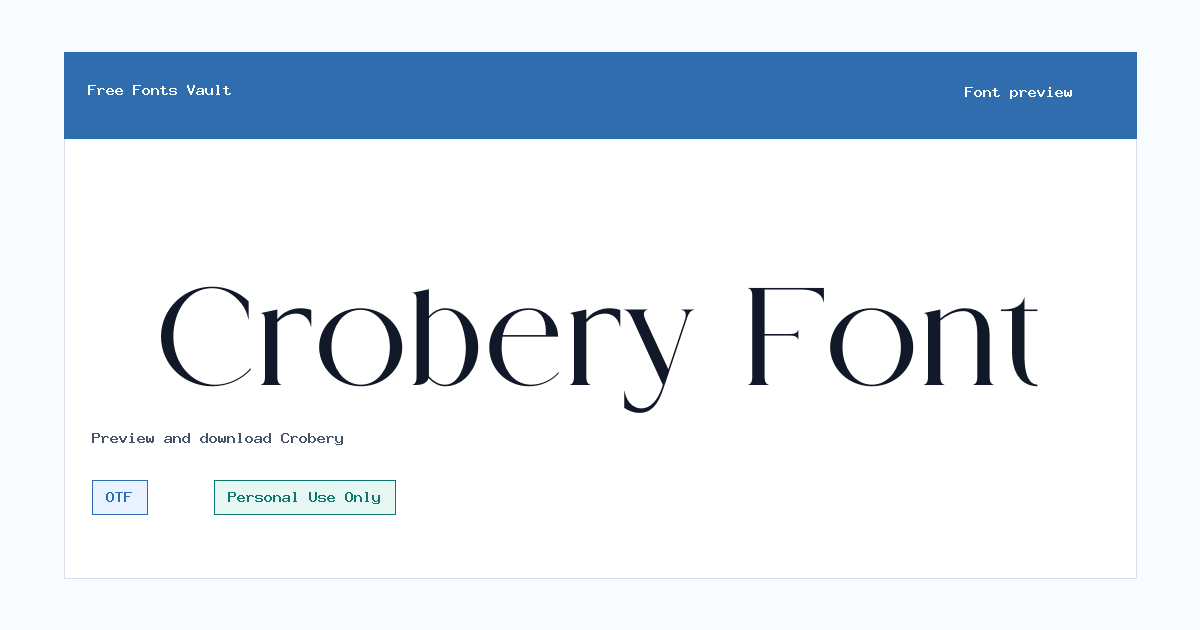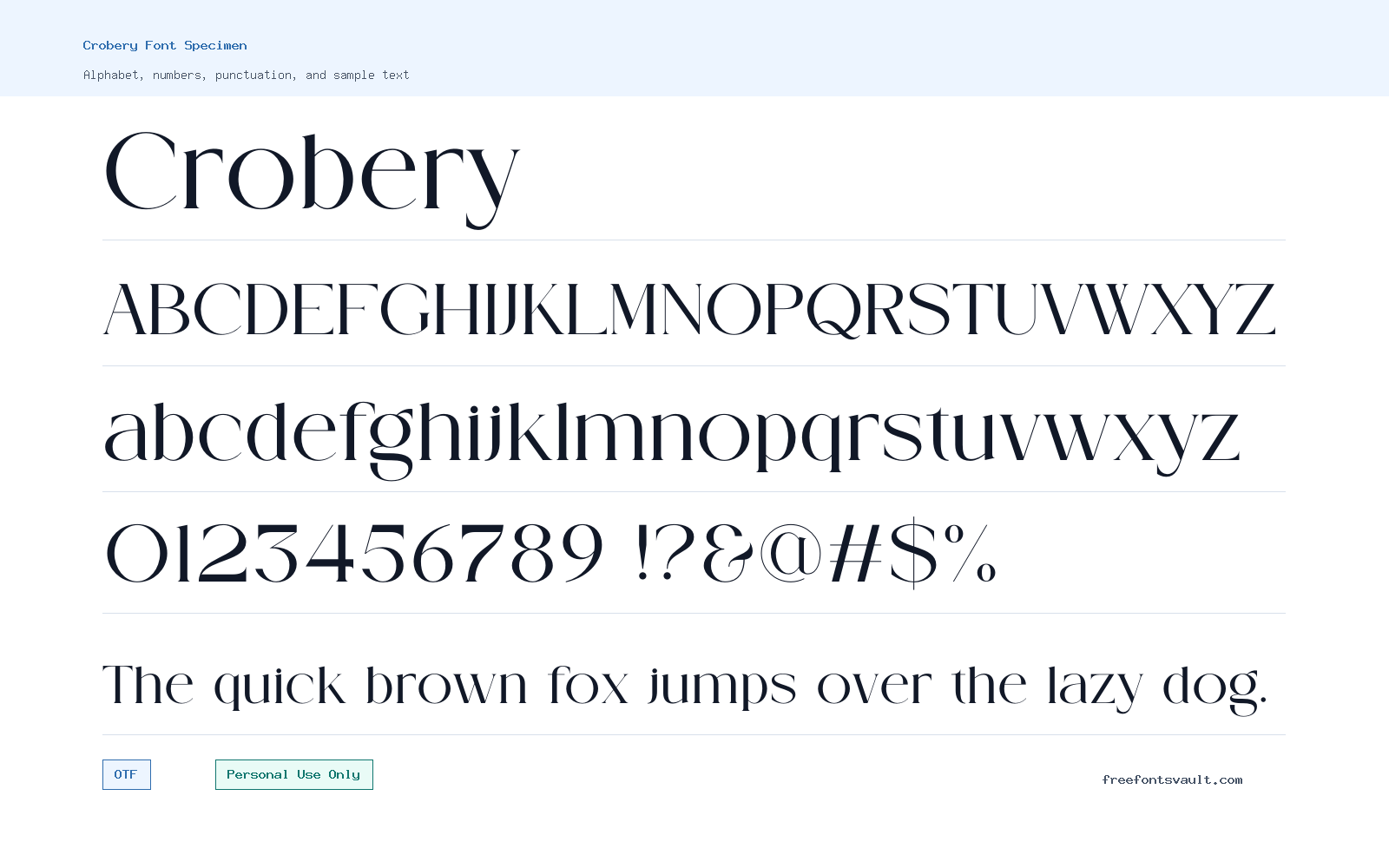
Crobery
- Designer Muflieart
Crobery font.
Crobery is a serif display font with a polished, decorative feel, suited to short pieces of text where style matters more than long-form reading.
About Crobery
Crobery works best as a display face: the kind of font you try for a brand name, a poster headline, a quote graphic, a packaging mockup, or a social media title. Its serif structure gives it a more refined personality than a plain sans serif, while the display styling makes it better for expressive text than for body copy. If you are testing it in the preview box, start with short words, initials, names, and two- or three-word headings. That will show the rhythm of the letters more clearly than a long paragraph.
- Serif display style suited to short headings, names, titles, and branding concepts
- Best used for expressive text rather than dense paragraphs
- Pairs well with clean sans serif fonts when a layout needs contrast and readability
- Logo drafts and brand name concepts
- Editorial-style headings
- Packaging and label mockups
- Invitation and stationery designs
- Pinterest pins, quote graphics, and social media headers
- Website hero headings and visual mockups
For the best results, use Crobery in larger sizes and keep the wording short. Try it with names, initials, product-style labels, poster titles, or one-line headlines. If a design needs supporting text, pair Crobery with a neutral sans serif or a calm text serif so the decorative headline does not compete with the rest of the layout. Before using it in a finished project, check punctuation, numbers, accents, spacing, and any special characters you need, because display fonts can vary in character coverage.
What kind of font is Crobery?
Crobery is a serif display font. It is better suited to headings, logos, posters, and decorative short text than to long paragraphs.
Who designed Crobery?
Crobery is credited to Muflieart.
Is Crobery good for body text?
It is better for short display text. For paragraphs, use a more readable companion font and keep Crobery for titles or accents.
What should I pair with Crobery?
Try pairing it with a simple sans serif for clean contrast. Use Crobery for the main title and the simpler font for body text, menus, or captions.